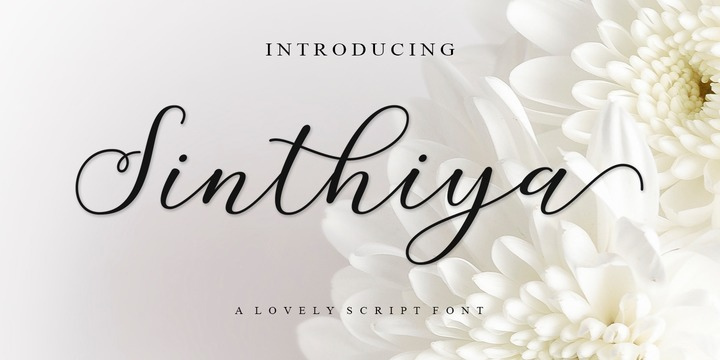
Sinthiya Script Font
Sinthiya Script Font is perfect for romantic wedding invitations, elegant love letters, feminine beauty brand identity, luxury jewelry packaging, delicate greeting cards, sophisticated personal stationery, bridal shower materials, romantic restaurant menus, intimate event invitations, elegant social media graphics, boutique fashion labels, and graceful projects that require flowing, handwritten typography with romantic sophistication and feminine elegance.
What makes Sinthiya Script Font so exciting is its enchanting romantic elegance and sophisticated femininity that captures the intimate beauty of handwritten love letters and the graceful charm of personal correspondence. This typeface features flowing script letterforms with delicate curves and elegant flourishes that create an immediate sense of romance, intimacy, and heartfelt expression. The font's romantic character and feminine appeal make it perfect for brands and projects that want to communicate love, elegance, and the kind of personal touch that makes communications feel genuinely heartfelt and romantically memorable.
Sinthiya Script Font typically comes in multiple weights and styles including Light, Regular, and Bold variations. Many versions also include romantic swashes, elegant ligatures, and decorative flourishes that enhance the font's handwritten functionality and provide designers with comprehensive tools for creating personalized, romantically-inspired typography compositions that feel authentically hand-lettered and emotionally engaging.
Create romantic connections with the elegant sophistication of Sinthiya Script Font Free Download. This enchanting typeface brings together handcrafted romance with contemporary design functionality, making it an essential tool for creative professionals who need to create memorable, emotionally resonant communications that speak to audiences seeking beauty, love, and personal expression. The font's romantic character ensures your projects will convey genuine warmth and feminine sophistication.
Whether you're designing romantic branding, wedding materials, or intimate personal communications, Sinthiya Script Font delivers exceptional charm and romantic authenticity that connects with audiences who appreciate feminine aesthetics and heartfelt artistic expression. Its flowing, organic appearance works beautifully with soft color palettes and romantic imagery, creating designs that feel both intimate and professionally elegant.
The lovingly crafted letterforms of Sinthiya Script Font demonstrate exquisite attention to the subtle details that make romantic typography both beautiful and emotionally compelling. Each character has been designed to maintain the spontaneous, organic quality of personal handwriting while ensuring excellent legibility and professional functionality, making it particularly valuable for romantic communications where emotional connection and feminine elegance are essential.